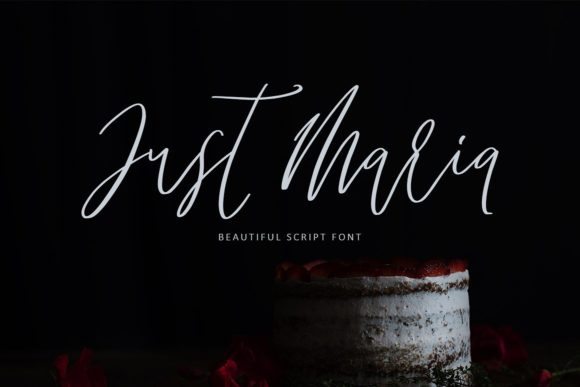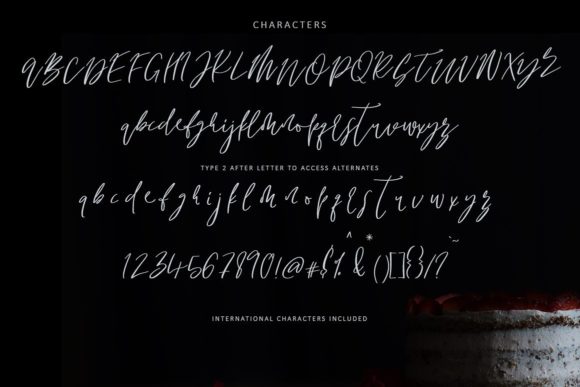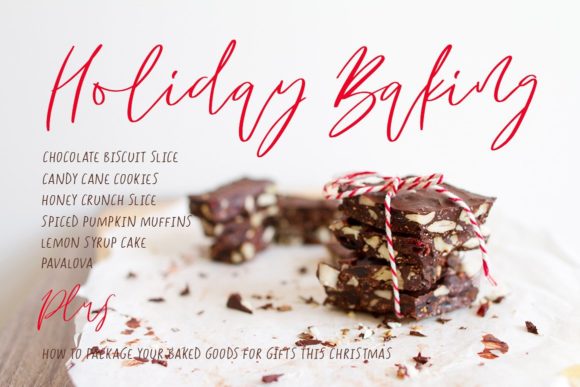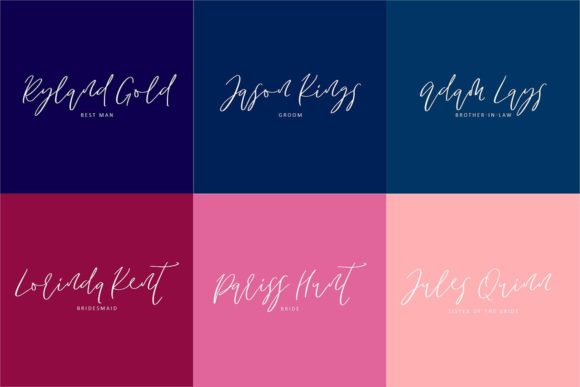
Just Maria Font
About Just Maria Font
The Just Maria is an amazing handwritten script. It has allot of character and is perfect for adding some charm to your designs.